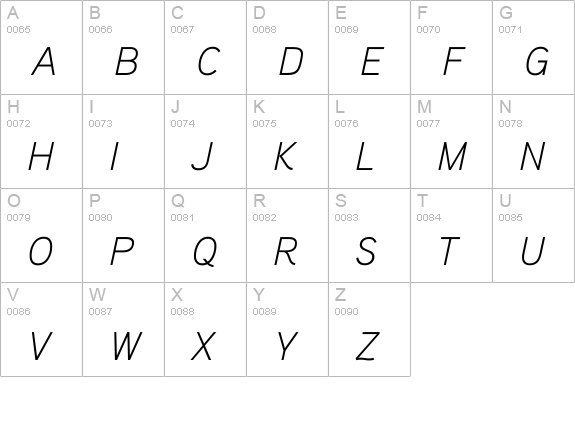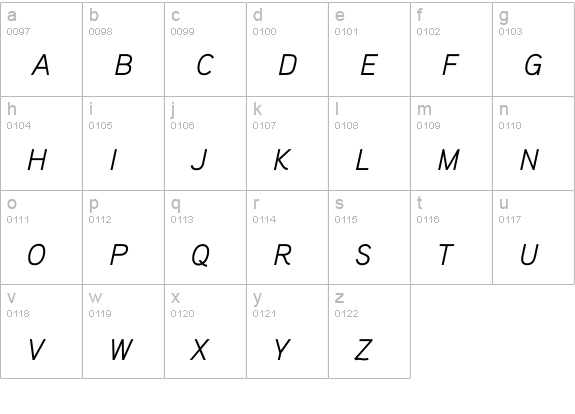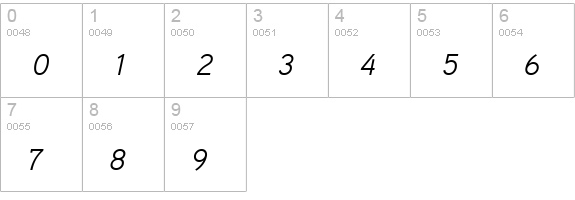
Aaux ProLight Italic SC is a distinctive, italic variant in the Aaux typeface family \xE2\x80\x94 well suited to design and typography projects.
Aaux ProLight Italic SC is a sleek and modern font that exudes elegance and sophistication. Its delicate italic style adds a touch of flair to any design project, making it perfect for conveying a sense of refinement and creativity. The slender letterforms of Aaux ProLight Italic SC flow effortlessly, creating a harmonious balance between readability and style. What's even better is that Aaux ProLight Italic SC is available for free download at FontsMarket.com. This means you can easily access this high-quality font to elevate your designs without having to spend a penny. Don't miss out on the opportunity to enhance your projects with the beauty and versatility of Aaux ProLight Italic SC - download it today and bring a touch of sophistication to your work!